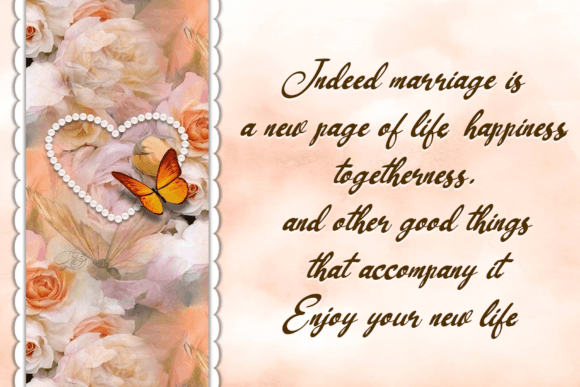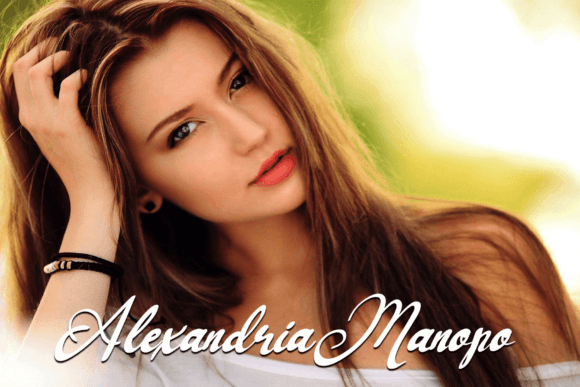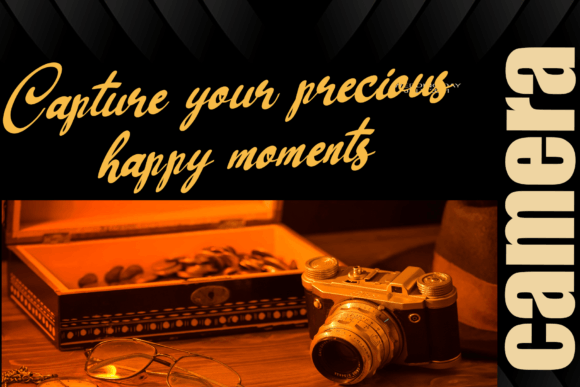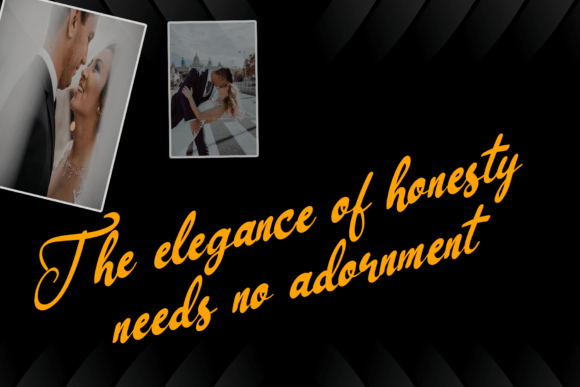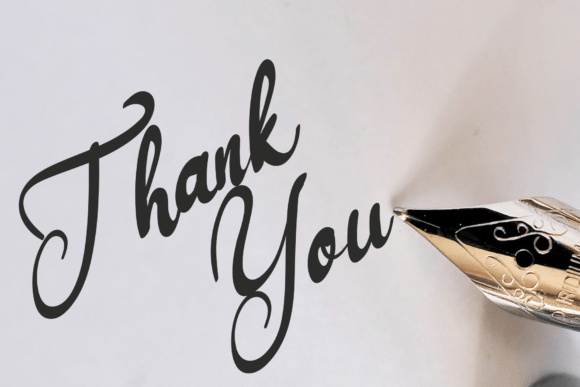
Whilly Font
About Whilly Font
“Whilly” is more than just a font; it’s a neat and beautiful handwritten script that exudes an elegant touch, making it a perfect choice for your favorite projects. This font invites you to fall in love with its incredibly distinct and timeless style, providing a versatile tool to create designs that are truly spectacular.
The neat and beautiful characteristics of “Whilly” contribute to its adaptability, making it suitable for a wide array of projects. Whether you’re working on invitations, branding, social media graphics, or any creative endeavor, this font’s elegant touch adds a level of refinement that enhances the overall aesthetic.
The handwritten quality of “Whilly” brings a personal and authentic feel to your designs, establishing a connection with your audience. Its timeless style ensures that your projects maintain a sense of relevance and visual appeal across different contexts.
Whether you’re aiming for a classic and elegant look or a more modern and stylish feel, “Whilly” effortlessly adapts. The distinctiveness of its style makes it a standout choice for expressing creativity in a manner that is both sophisticated and approachable.
In summary, “Whilly” is a font that combines neatness, beauty, and an elegant touch. Let it be the tool that elevates your designs, turning them into spectacular creations that capture attention and leave a lasting impression. Whether you’re a professional designer or an enthusiast, “Whilly” offers a timeless and distinct style for your creative endeavors.